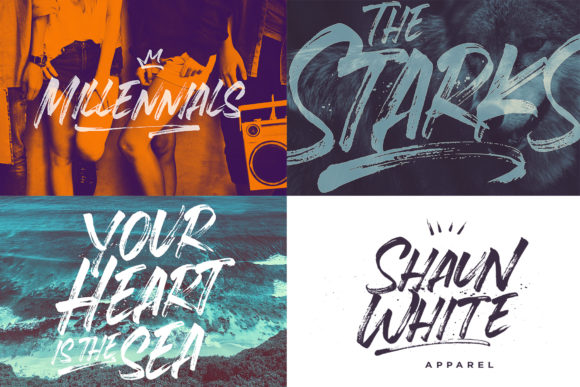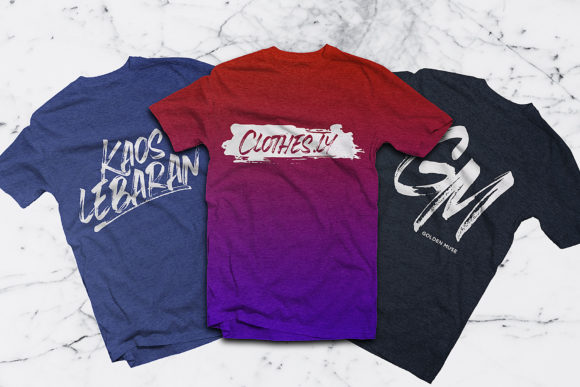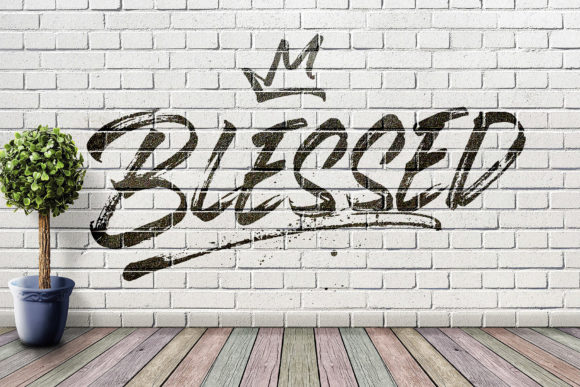
Introduction to Seblaque Font
As a designer, there’s nothing quite like the thrill of discovering a new font that perfectly captures the essence of your creative vision. Whether you’re working on a high-profile branding project or a personal passion project, having the right design resource can make all the difference. And that’s exactly what the Seblaque Font offers – a bold, all-caps brushed font that adds a touch of contemporary charm to any design project.
Imagine you’re working on a design project, and you need a font that stands out from the crowd. You search high and low for the perfect font, but nothing seems to quite fit the bill. That’s where the Seblaque Font comes in – a high-quality font that’s free to download and perfect for designers looking to add a unique touch to their creative project.
Key Features of Seblaque Font
- Comes with a transparent background option, allowing for versatile use in various design applications.
- This font is ideal for designers seeking a unique, high-quality design resource for their creative projects.
- Seblaque Font is available in a range of sizes and resolutions, making it suitable for use in various design contexts.
- This font’s high quality and versatility make it an excellent addition to any designer’s collection of design resources.
- Seblaque Font is a popular design resource, widely used in various creative projects due to its unique characteristics and high-quality design.
Honest Review: Seblaque Font
As a designer, I’m always on the lookout for high-quality design resources to elevate my creative projects. Recently, I stumbled upon the Seblaque Font, and I must say it’s been a great addition to my toolkit. The font is available for free download, which is always a bonus in my book.
- High-quality font design that’s perfect for headings and titles
- Transparent background, making it easy to use on any background
While the Seblaque Font is a great resource, I did encounter a few limitations:
- Only available in a limited number of font weights
- Not suitable for large blocks of text, as it can become tiring to read
Overall, I’m really impressed with the Seblaque Font. Its unique design and high-quality feel make it a great choice for designers looking to add some personality to their creative projects. With a few minor limitations, I’d definitely recommend it as a design resource to anyone looking for a free, high-quality font.
How to Use Seblaque Font
The Seblaque Font is a high-quality design resource that offers a unique and creative way to add style to your projects. With its transparent background, this font is perfect for designers who want to add a touch of elegance to their work.
Tips for Getting the Most Out of Seblaque Font
To get the most out of the Seblaque Font, try combining it with other design elements, such as graphics and images, to create a unique and eye-catching design.
Common Use Cases for Seblaque Font
The Seblaque Font is perfect for a variety of creative projects, including:
1. Branding and logos.
2. Social media graphics.
3. Website design.
4. Print materials, such as business cards and brochures.
Alternatives to Seblaque Font
Montserrat is a popular sans-serif font designed by Julieta Ulanovsky. It is ideal for creative projects that require a clean and modern aesthetic, such as logos, branding materials, and digital interfaces. Montserrat is available for free download and features a high-quality design that works well with transparent backgrounds.
Montserrat compares to Seblaque Font in its modern and clean design, but it lacks the geometric and abstract elements found in Seblaque Font. Montserrat is a more versatile font suitable for a wide range of creative projects.